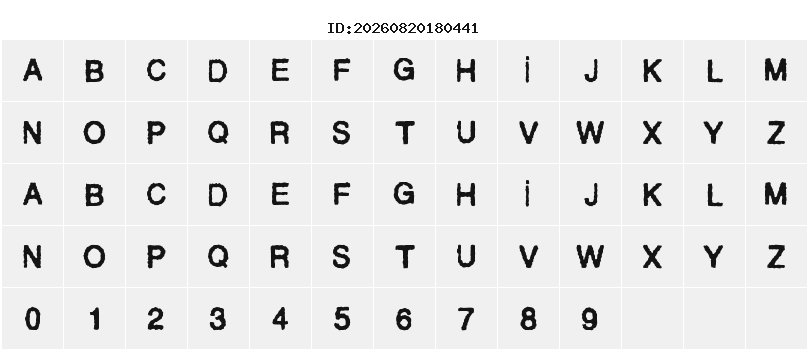
• Font Name: Sentencia
• Full Font Name: Sentencia
• Version: Version 1.00 March 16, 2015, initial release
• Designer: Woodcutter Manero
About Sentencia.ttf
Sentencia.ttf is a modern, elegant sans-serif font designed for ultimate readability and visual harmony. Perfect for branding, headlines, web design, and print materials.